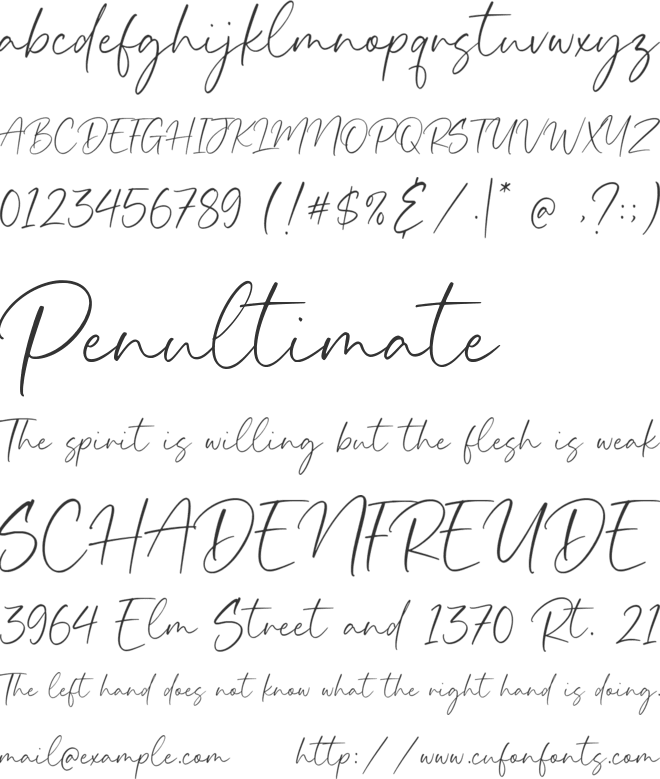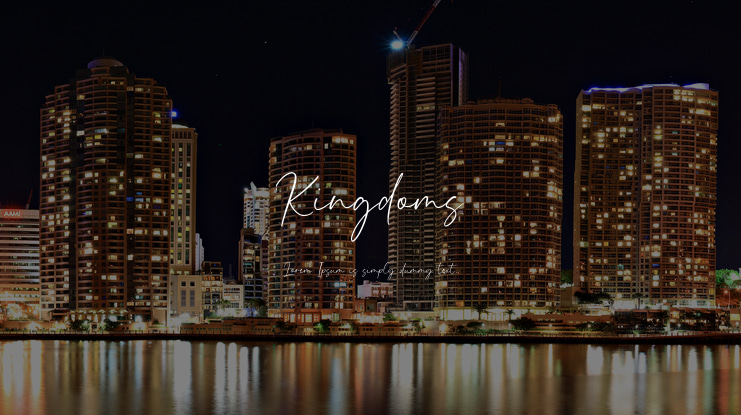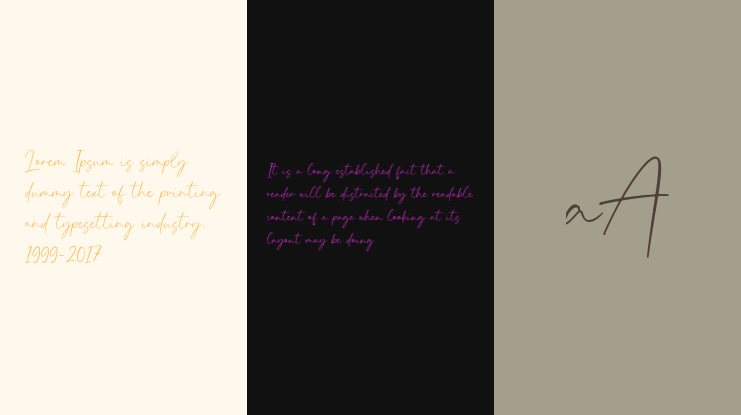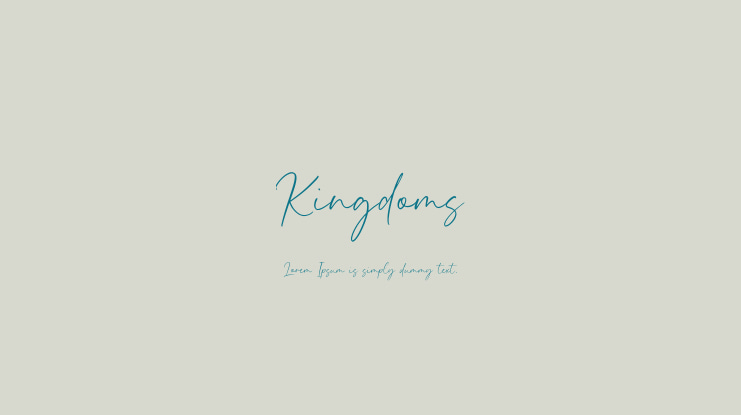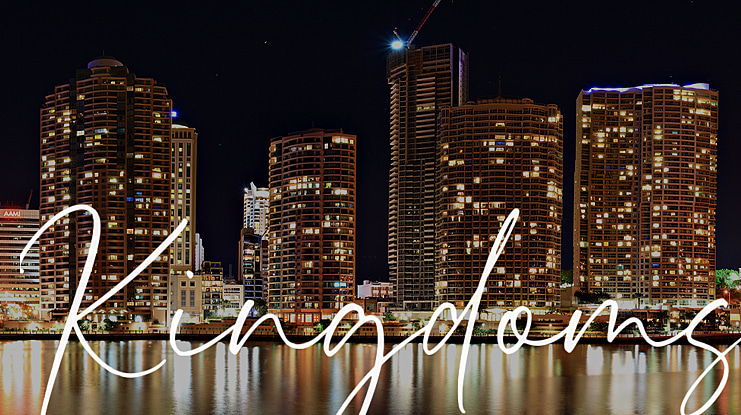
Kingdoms Font
Kingdoms is a handwritten font that was created with great care and specially created for you ????
Kingdoms is perfect for product packaging, branding project, magazines, social media, weddings, or just used to express words above the background.